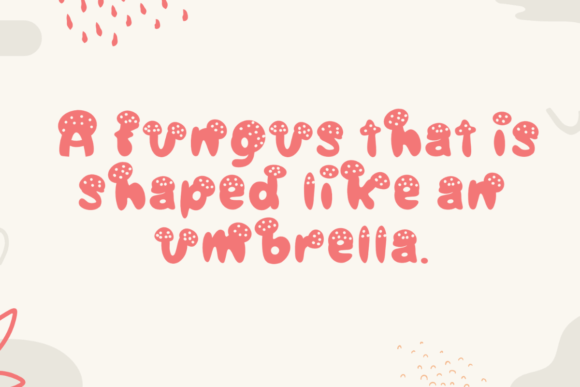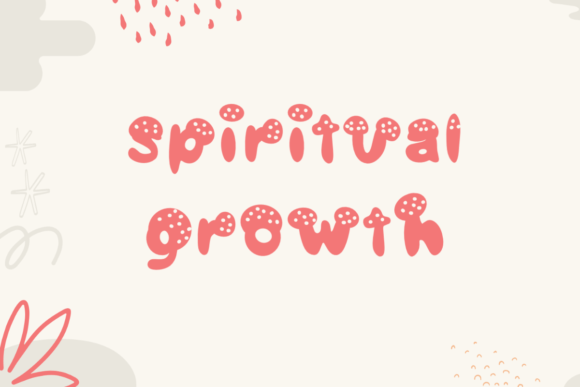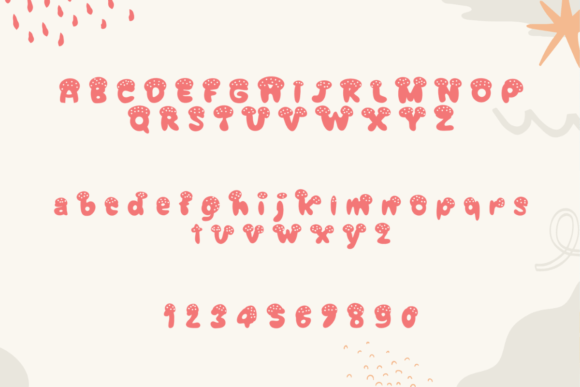
The Joy of Happy Fungy Font: A Designer’s New Best Friend
I’ll never forget the time I was working on a project for a kids’ birthday party, and I just couldn’t find the right font to match the playful theme. The client wanted something fun, whimsical, and eye-catching, but everything I tried seemed either too boring or too over-the-top. That’s when I stumbled upon Happy Fungy Font, and let me tell you, it was love at first sight! 💕
- ✨ Happy Fungy Font is perfect for kid-friendly content, with its playful and whimsical vibe that’s sure to delight.
- ✅ The font is incredibly versatile, making it suitable for a wide range of projects, from cards and flyers to banners and book titles.
- 💫 The unique mushroom-inspired design adds a touch of personality to any project, making it stand out from the crowd.
While Happy Fungy Font is an amazing addition to any design project, there are a few things to keep in mind:
- ⚠️ Some of the more intricate details can get lost at smaller font sizes, so it’s best to use it at larger sizes (24pt or bigger) for maximum impact.
- 🤔 The font’s playful nature might not be suitable for more formal or professional projects, so use it judiciously.
The Story Behind Happy Fungy Font
Happy Fungy Font was designed by a team of creatives who wanted to bring a touch of whimsy and fun to the world of typography. Inspired by the magical world of mushrooms, they crafted a font that’s both playful and elegant, perfect for projects that need a little extra personality.
Q: What type of projects is Happy Fungy Font best suited for?
A: Happy Fungy Font is perfect for kid-friendly content, such as children’s books, birthday party invitations, and educational materials.